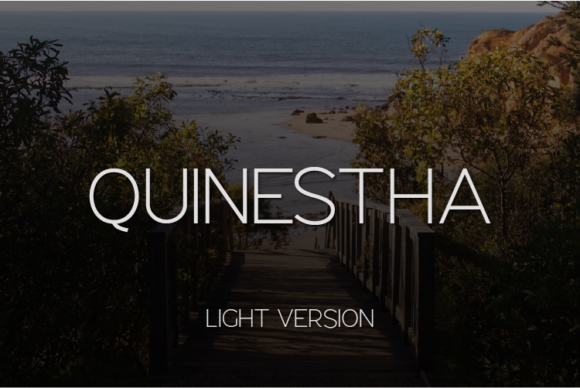
Quinestha Light Font
Unleash the allure of Quinestha Light Font, a contemporary sans serif typeface that captivates with its refined elegance and modern simplicity. Designed by the talented Huntype, Quinestha Light Font is a visual masterpiece that combines crisp edges and delicate curves, exuding a timeless charm that transcends fleeting trends.
Journey into the world of Quinestha Light Font, where clarity meets creativity. Its meticulously crafted letterforms ensure exceptional legibility, making it an ideal choice for branding, logos, headlines, and high fashion endeavors. Its versatility extends to web design, where its crisp lines and modern touches bring a touch of sophistication to digital spaces.
Embrace the versatility of Quinestha Light Font and unlock a world of creative possibilities. Its clean lines and minimalist aesthetic make it a perfect companion for projects that demand a refined and understated elegance. Whether you're crafting a captivating brand identity, designing a sleek logo, or creating eye-catching headlines, Quinestha Light Font will elevate your creations with its timeless grace.
Indulge in the beauty of Quinestha Light Font and let your imagination soar. Its modern touches and crisp edges are the perfect canvas for expressing your unique style and vision. Whether you're a seasoned designer or just starting your creative journey, Quinestha Light Font will become your trusted companion, guiding you towards design excellence.